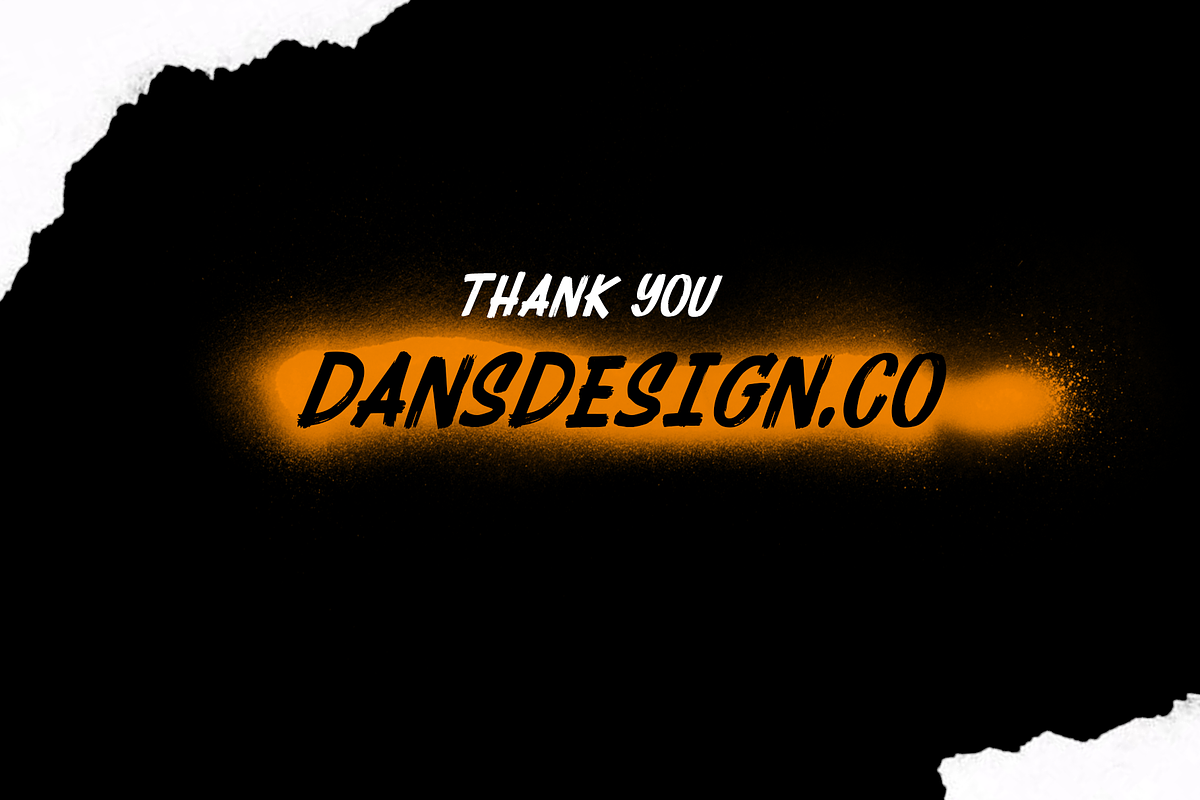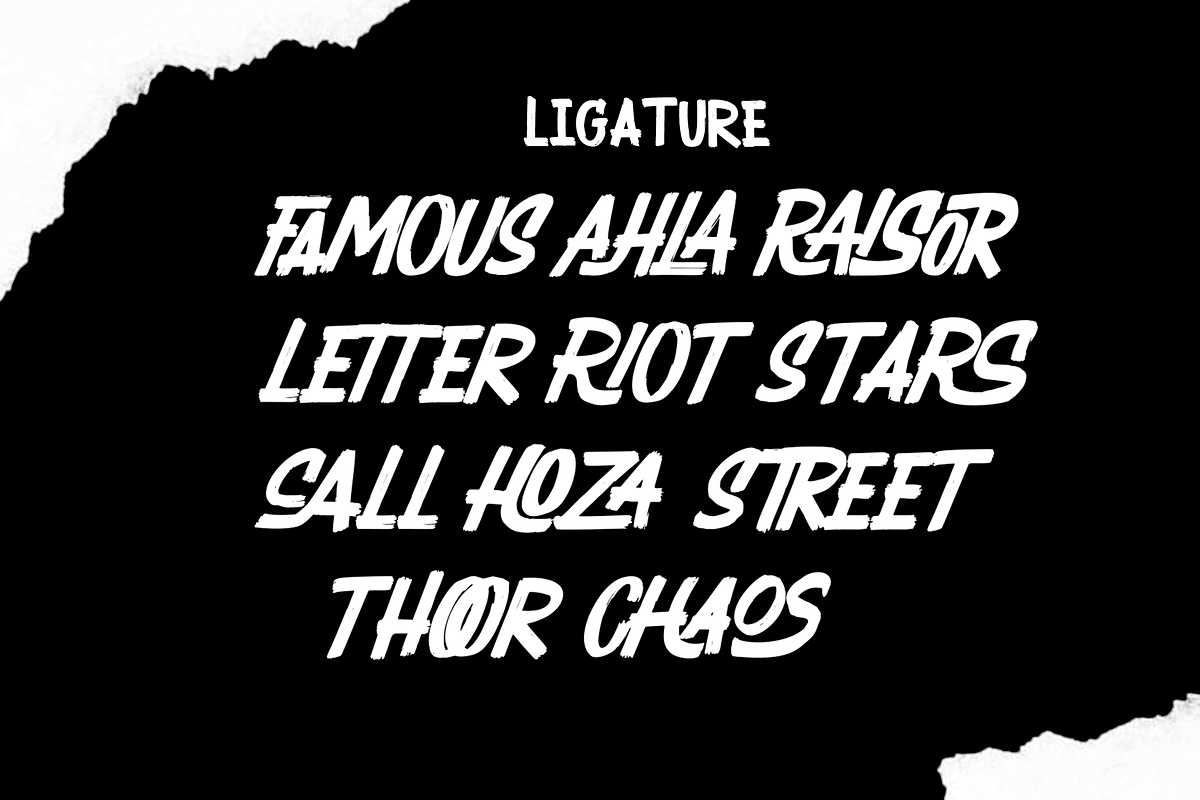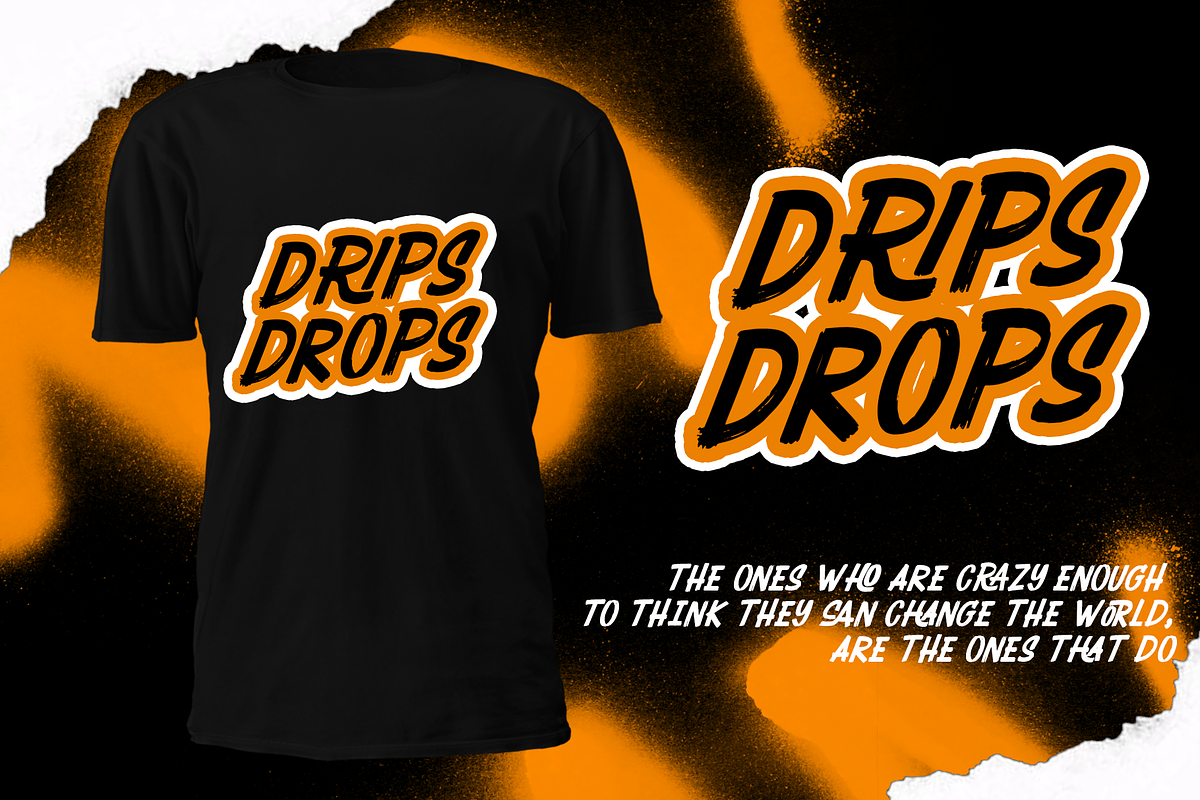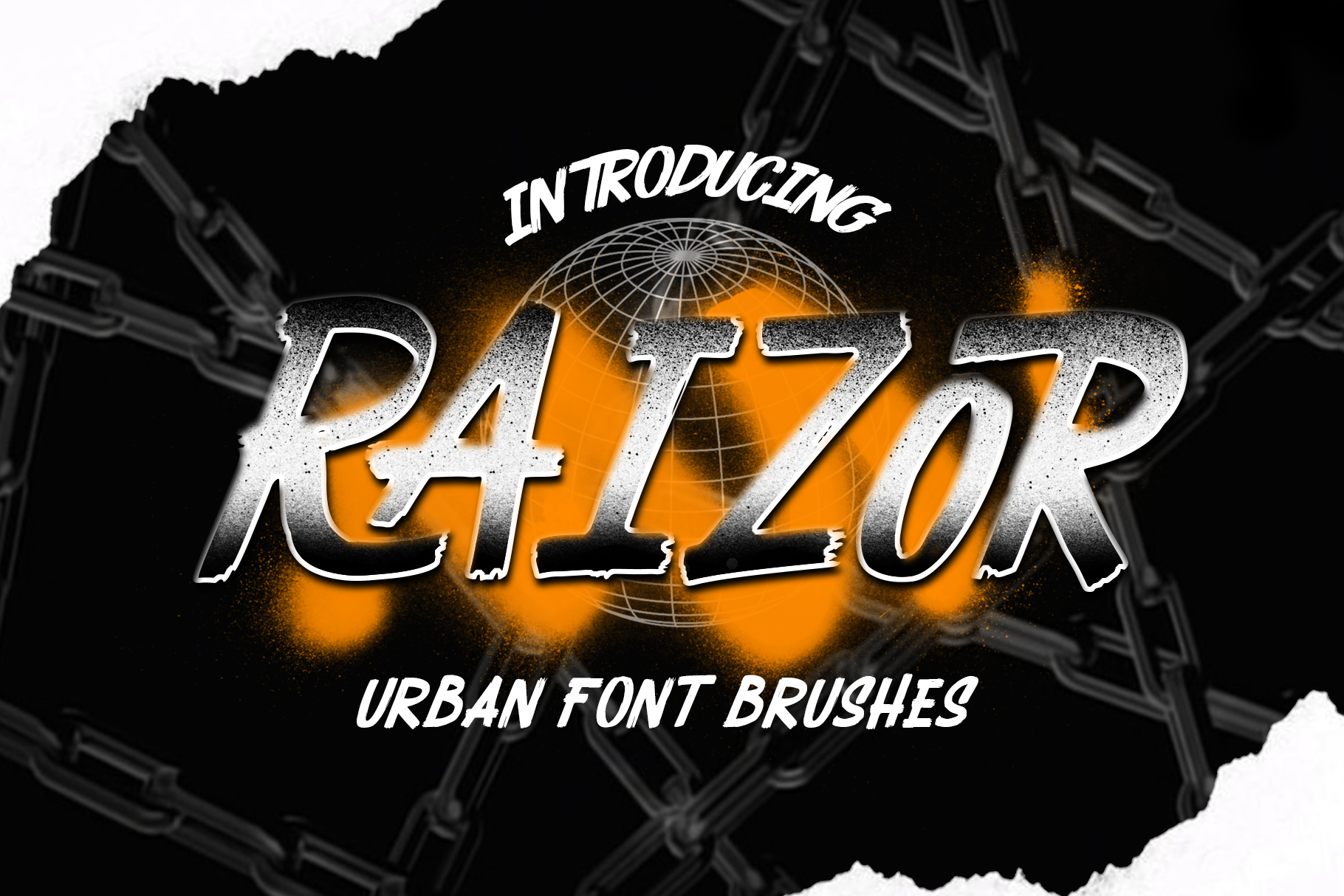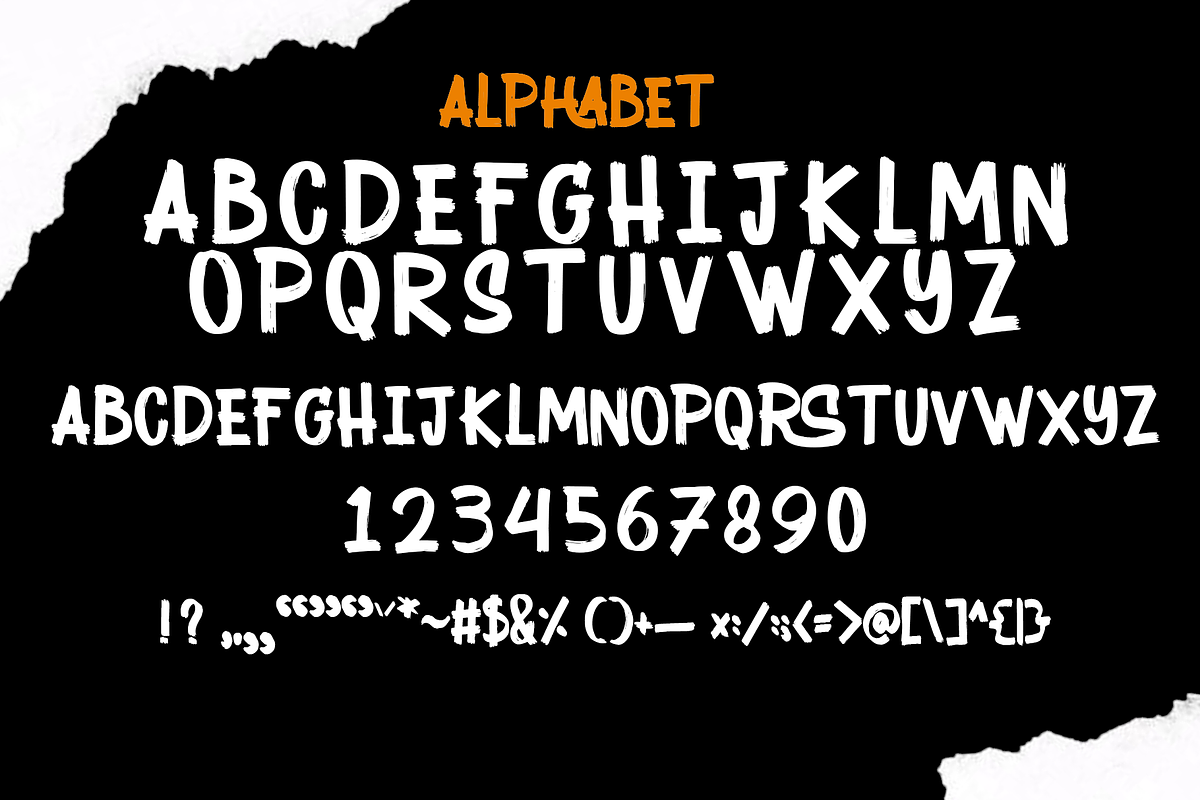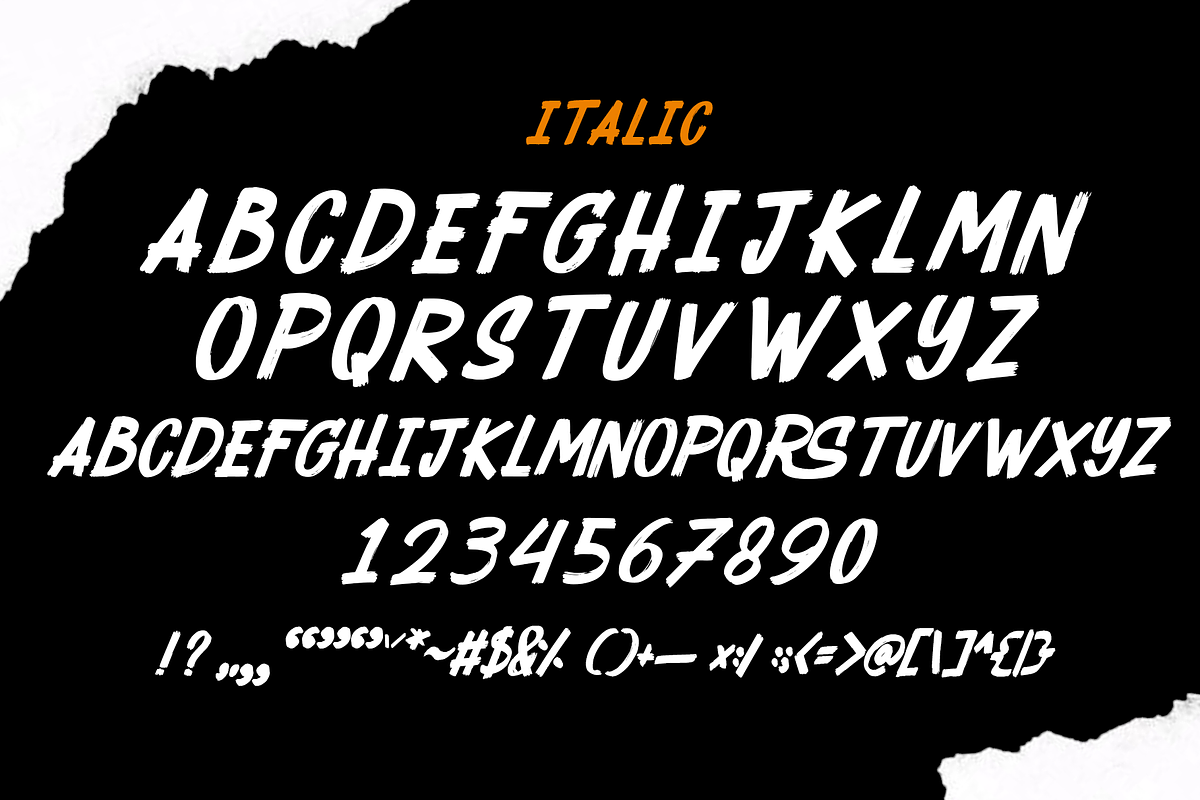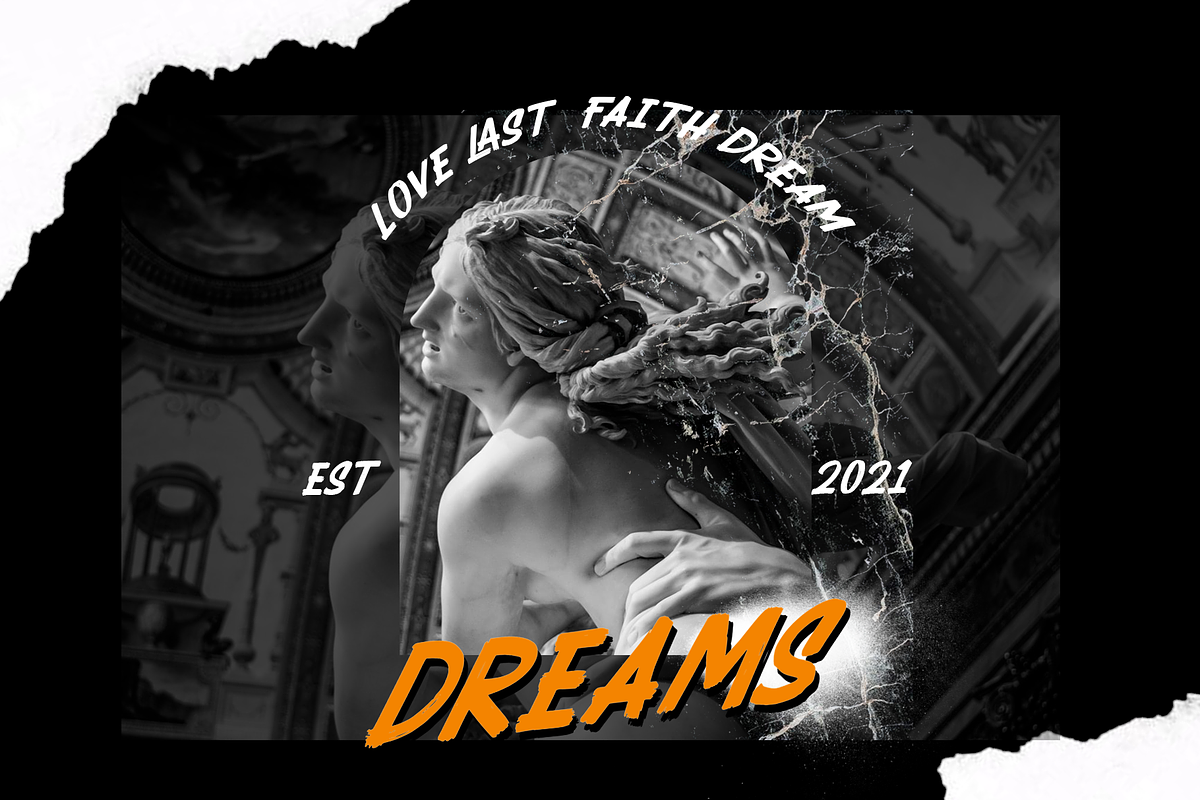
RAIZOR brush font
Introducing our new product called RAIZOR brush font . I made this brush lettering reference. RAIZOR brush font are great for logos, tshirt designs, badges, headlines, signatures, packaging, and more.